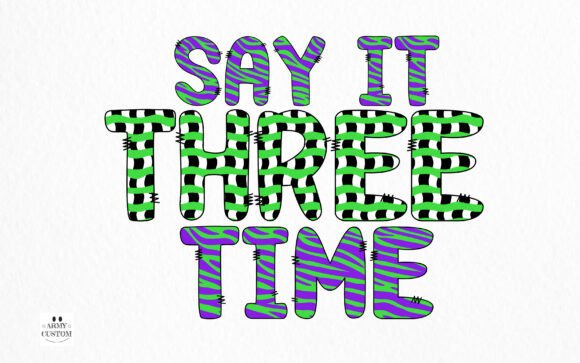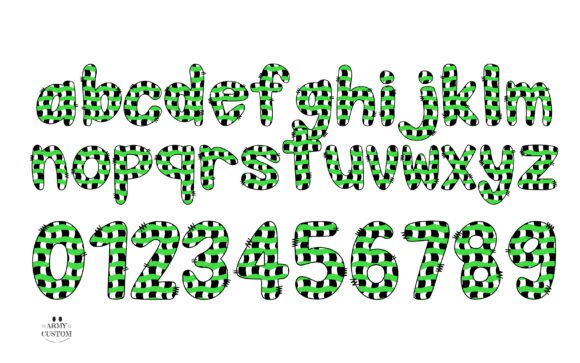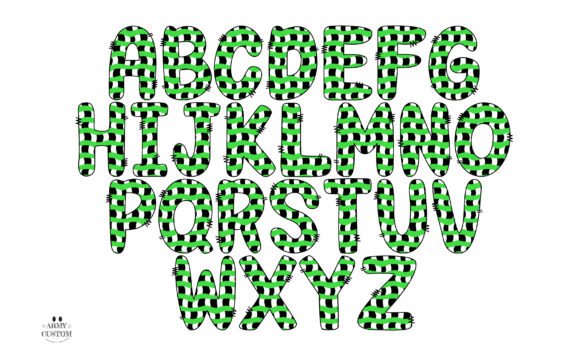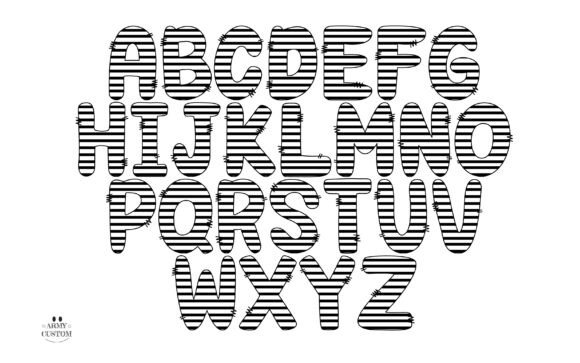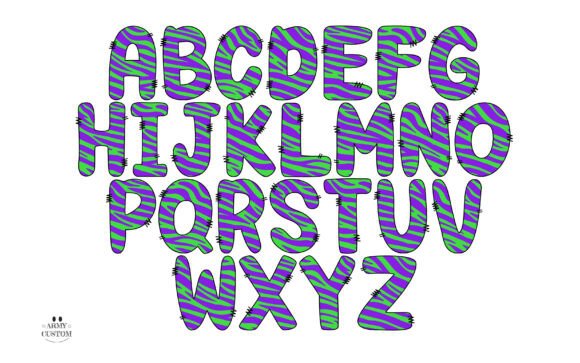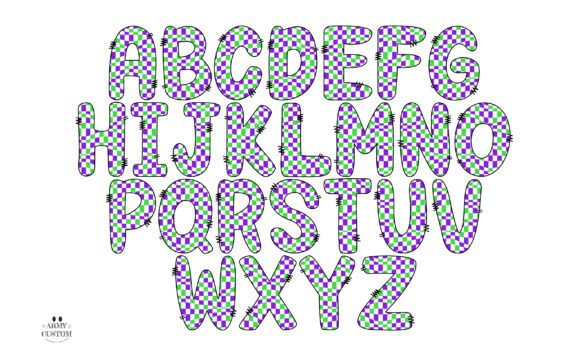
Unleash the Magic of Beetle Army Bundle Font: A Spooky Seasonal Delight
Are you ready to add a dash of spellbinding magic to your creative journey? Look no further than the Beetle Army Bundle Font, a distinct Halloween Doodle Font Color that’s sure to empower your creativity and infuse a magnetic charm into your artistic endeavors. In this article, we’ll dive into the world of Beetle Army Bundle Font, exploring its unique features, compatibility, and the endless possibilities it offers for designers and crafters alike.
What is Beetle Army Bundle Font?
The Beetle Army Bundle Font is a vibrant and uniquely designed font collection that’s perfectly suited to breathe life into arts and crafts projects. Enveloped in a delightful Halloween-themed guise, this font is the quintessential element to add a touch of enchanting allure to your creative projects. With its flawless design and color font capabilities, it’s sure to make your artistic endeavors captivating works of art.
Key Features of Beetle Army Bundle Font
- Distinct Halloween Doodle Font Color: The Beetle Army Bundle Font boasts a one-of-a-kind design that’s specifically crafted to evoke the spirit of Halloween. Its doodle-style font is perfect for adding a playful and spooky touch to your projects.
- Versatile and Unique: This font collection is designed to be versatile and adaptable, making it perfect for a wide range of creative applications. Whether you’re working on arts and crafts projects, digital designs, or even commercial projects, the Beetle Army Bundle Font is sure to make a statement.
The Beetle Army Bundle Font offers endless possibilities for designers and crafters alike. Here are just a few ideas to get you started:
- Halloween-themed Arts and Crafts: Use the Beetle Army Bundle Font to add a spooky touch to your Halloween-themed arts and crafts projects. From party invitations to decorations, this font is sure to make your projects stand out.
- Digital Designs: The Beetle Army Bundle Font is perfect for digital designers looking to add a touch of Halloween magic to their projects. Use it to create spooky social media graphics, Halloween-themed blog posts, or even digital invitations.
- Commercial Projects: The Beetle Army Bundle Font is also suitable for commercial projects, such as branding, packaging, and advertising. Use it to add a unique and eye-catching touch to your marketing materials.
In conclusion, the Beetle Army Bundle Font is a unique and versatile font collection that’s perfect for designers and crafters looking to add a touch of Halloween magic to their projects. With its distinct design, compatibility with select design software, and bonus PNG files, this font collection is sure to empower your creativity and infuse a magnetic charm into your artistic endeavors. So why wait? Unleash the magic of Beetle Army Bundle Font today and take your creative journey to the next level!